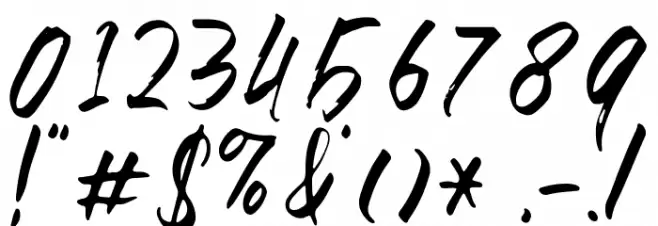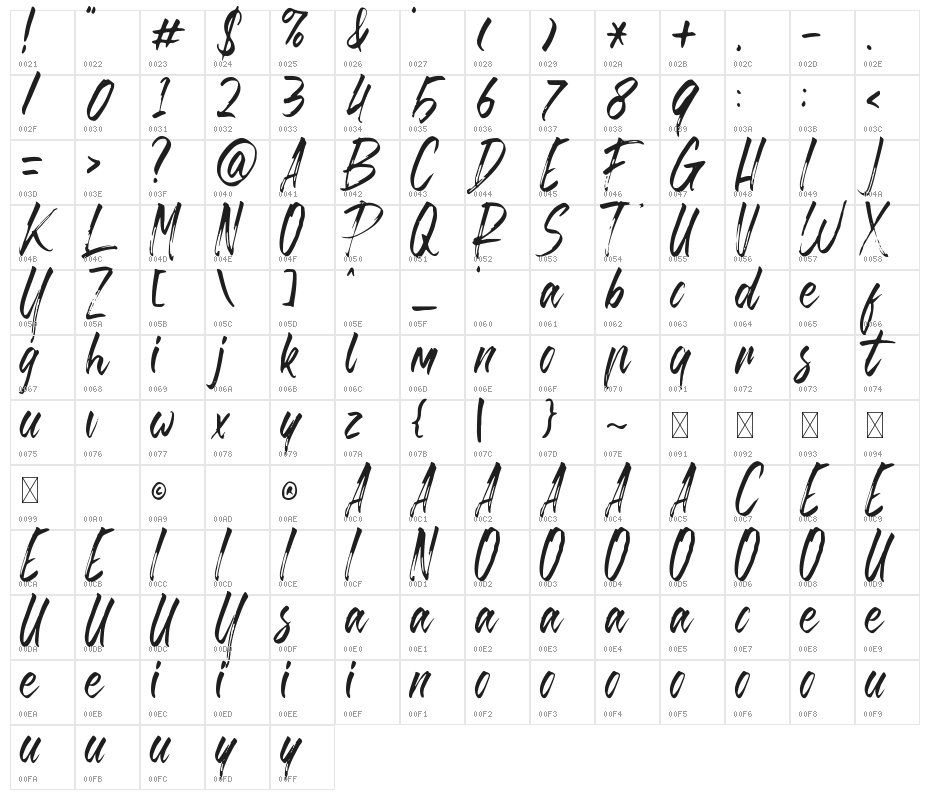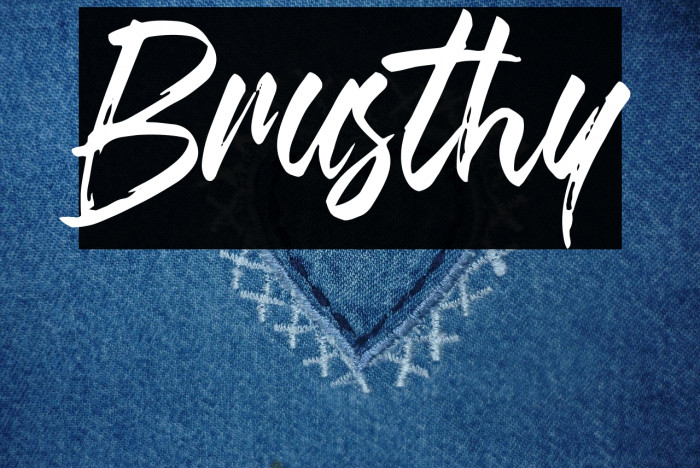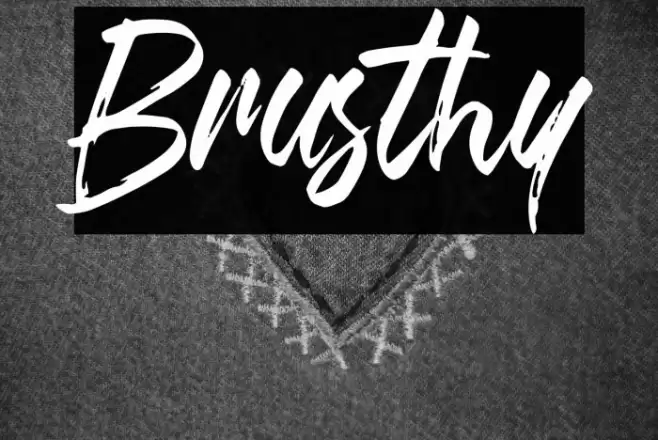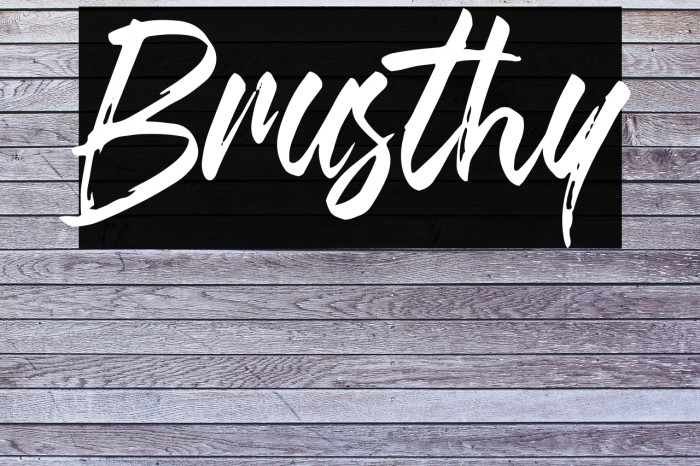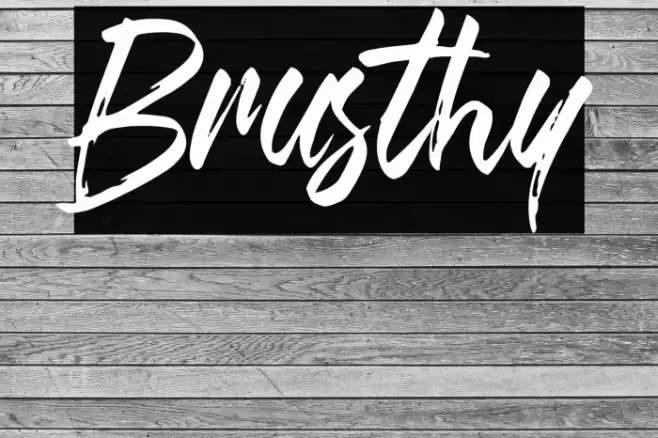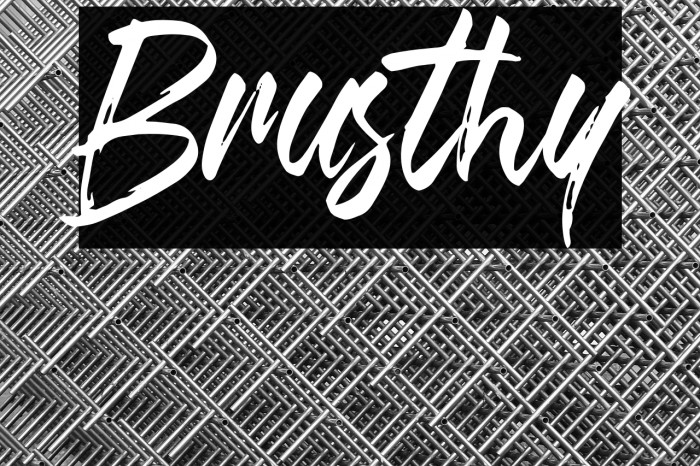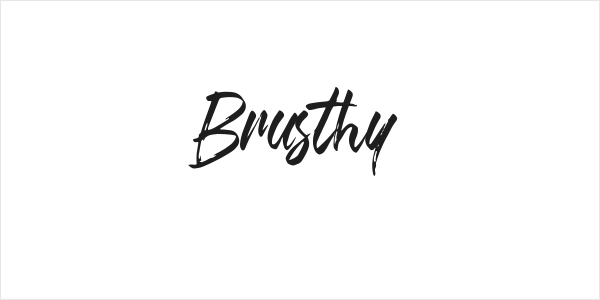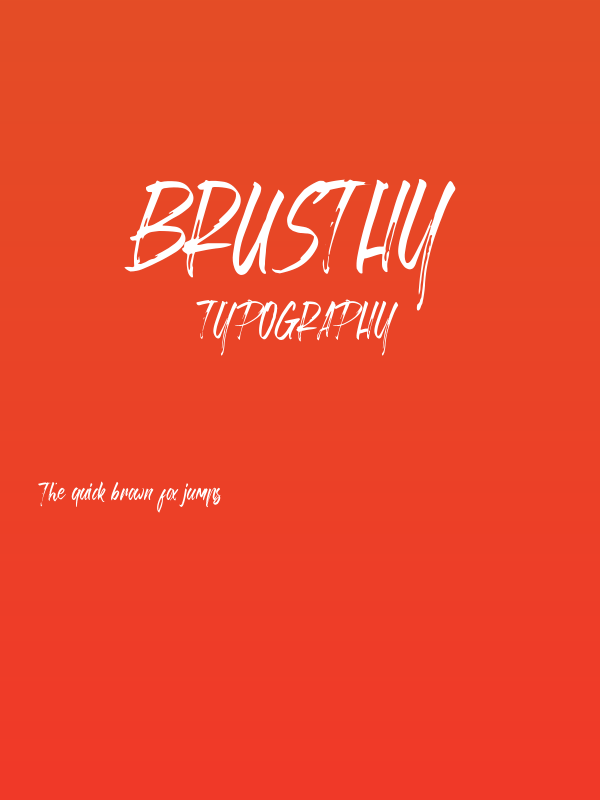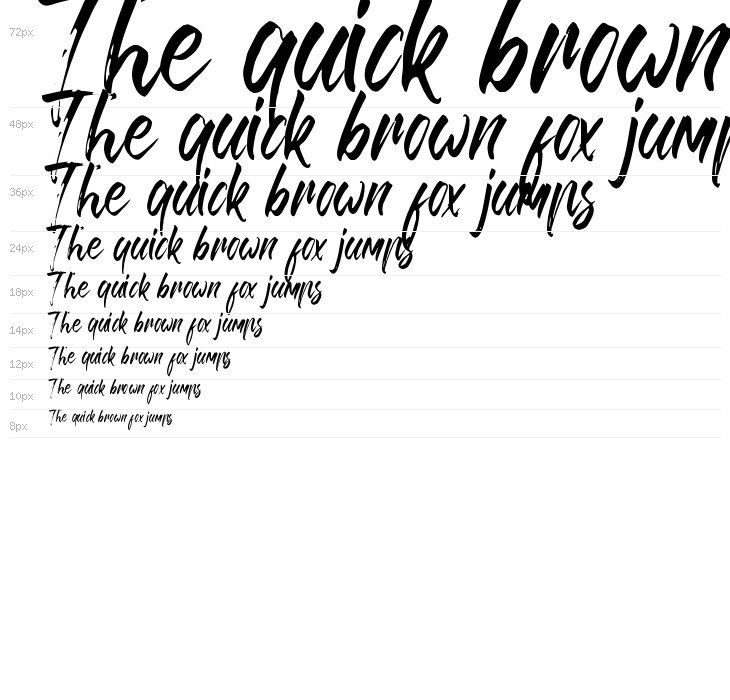
Brusthy Font
Brusthy Description
This font exudes a dynamic and energetic feel, characterized by its bold and expressive brush strokes. The letters are crafted with a sense of motion, giving the impression of being hand-painted with a brush. The uppercase letters are tall and slightly narrow, while the lowercase letters maintain a consistent flow with a slightly more relaxed form. The numbers and special characters follow the same energetic style, ensuring a cohesive look across all characters. The overall appearance is both artistic and modern, making it suitable for projects that require a personal and creative touch.
Overall StyleModern, Artistic
Proposed ProjectsIdeal for branding, posters, artistic projects, and any design requiring a bold, personal touch.